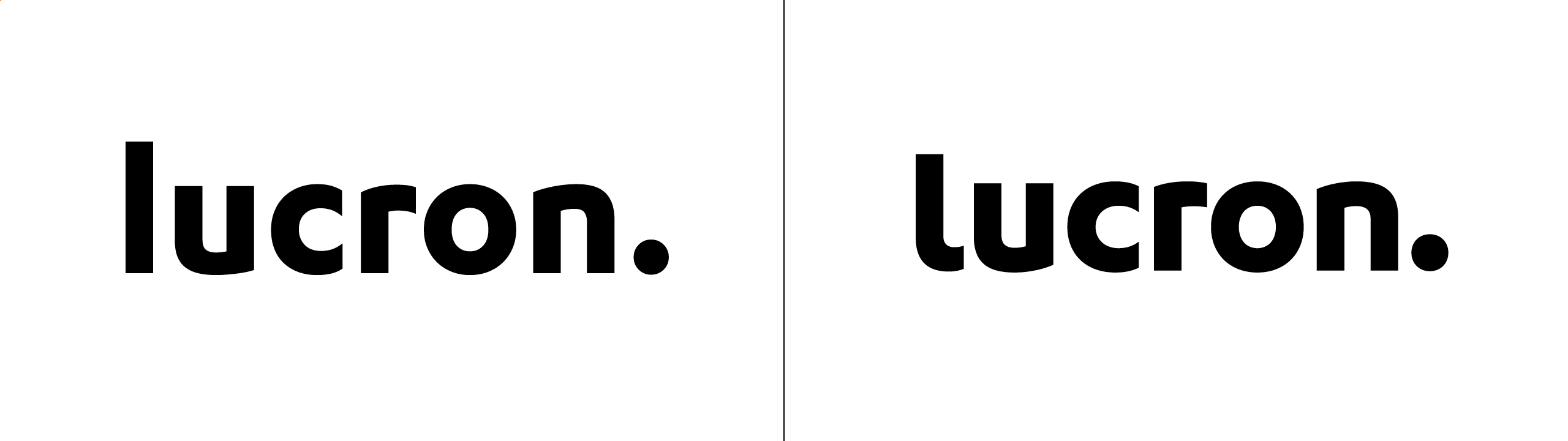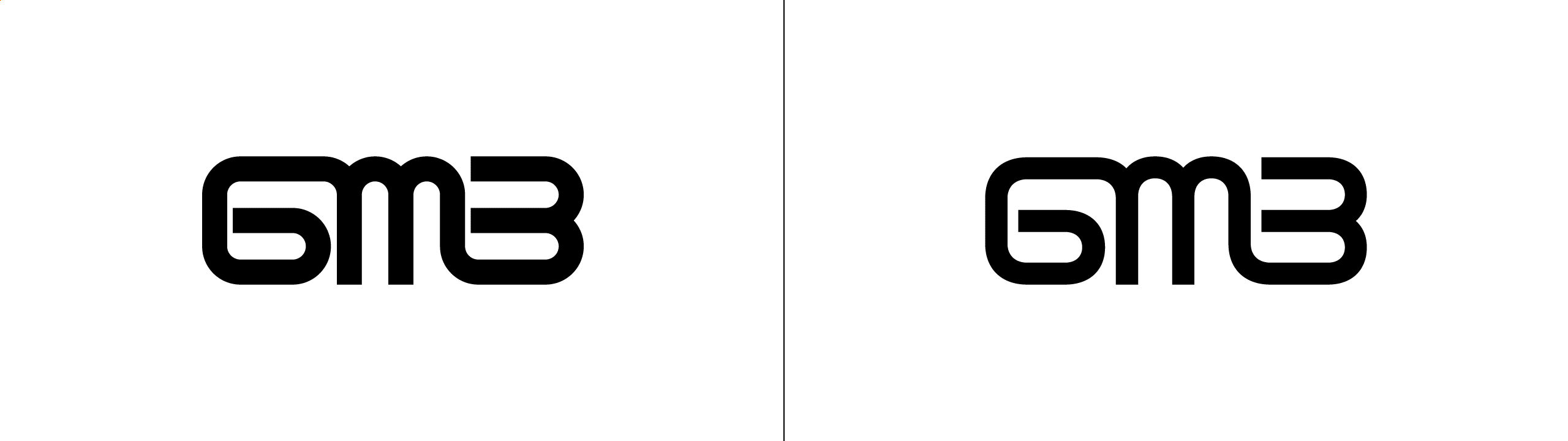
Logo Optimizations
Lucron — Optimization of the wordmark of a Slovak real estate management company. A serif was added to the bottom of the initial small letter l to prevent confusion with the capital letter I. Both the proportions of the individual glyphs as well as spacing were adjusted for more harmonious and compact appearance.
Bratiska — Complete re-drawing of a calligraphic script lettering. Fixed modulation in stroke thickness, improved rhythm and corrected construction logic.
Bratislava City Gallery — Optimization of the wordmark of a Slovak gallery. Compared to the original, strictly geometric design, the new wordmark is redrawn using thinner strokes and with larger counter spaces, the bends flow more naturally, and the proportions are adjusted so that all glyphs appear optically equally wide.